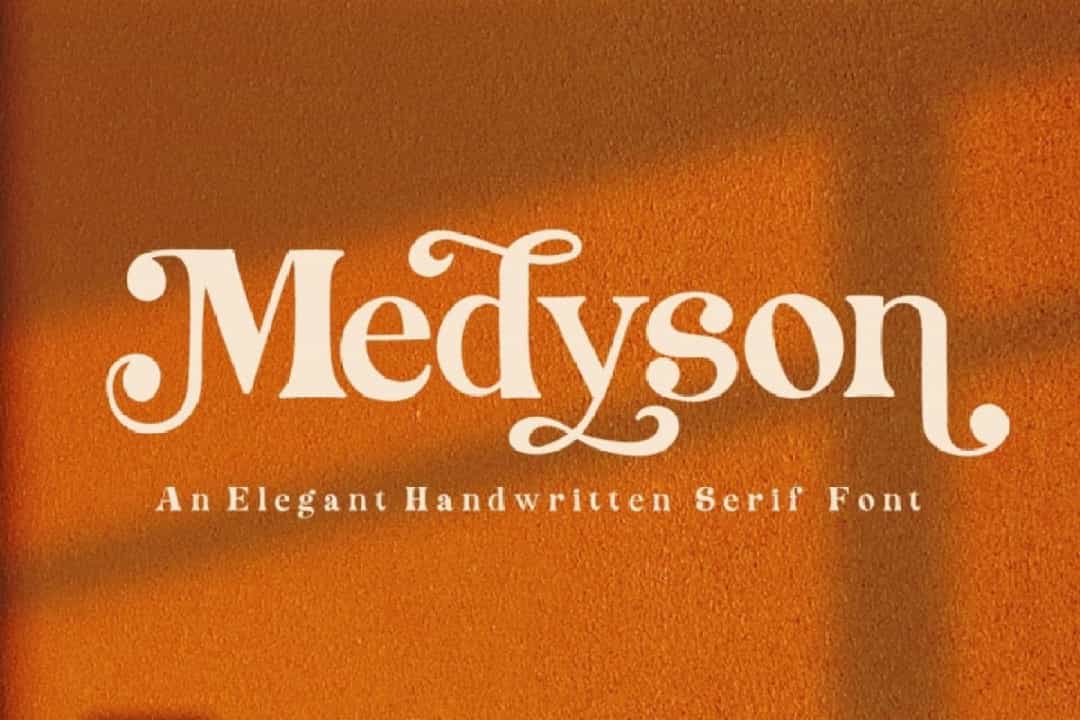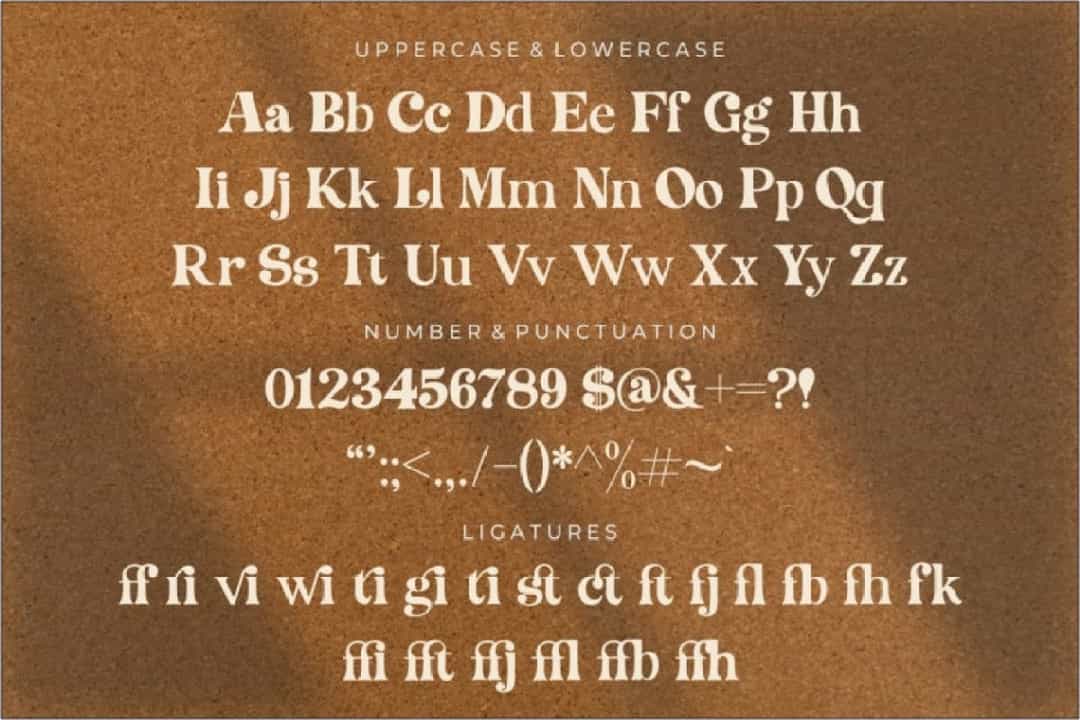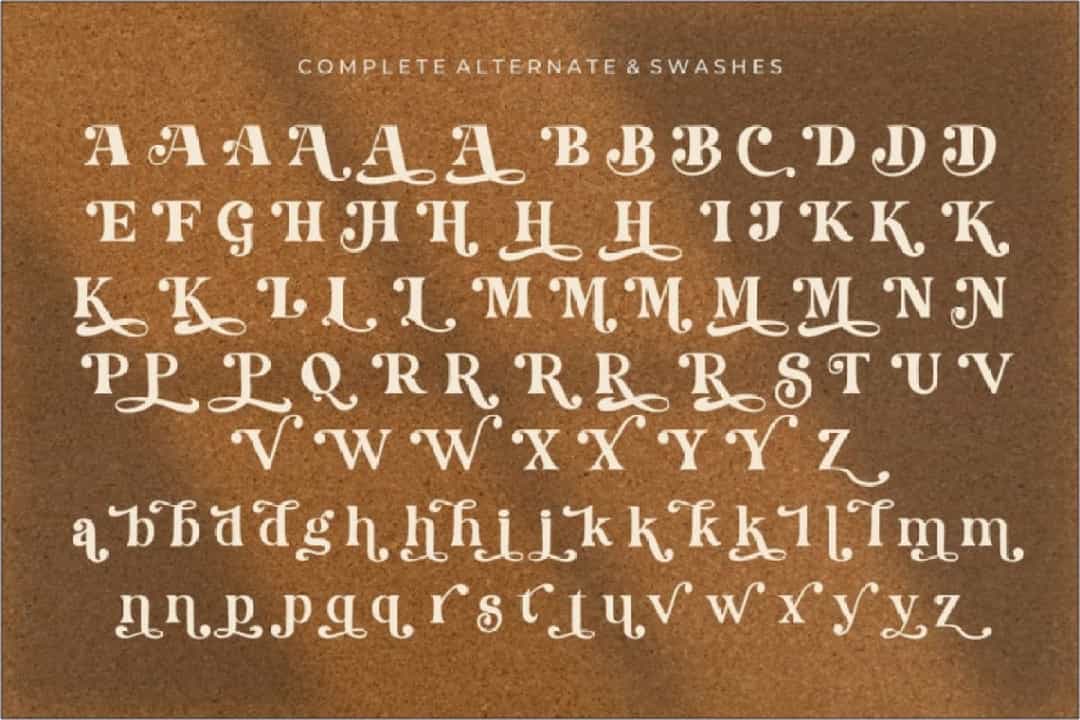
We are proud to present Medyson Font, a gorgeous new handwritten serif font with many sets of alternate characters and stylish ligatures. Medyson includes both small and capital international numeral characters, as well as all punctuation marks and ligatures; also all lower case letters are equipped with both the beginning and the end swashes for a better writing experience.